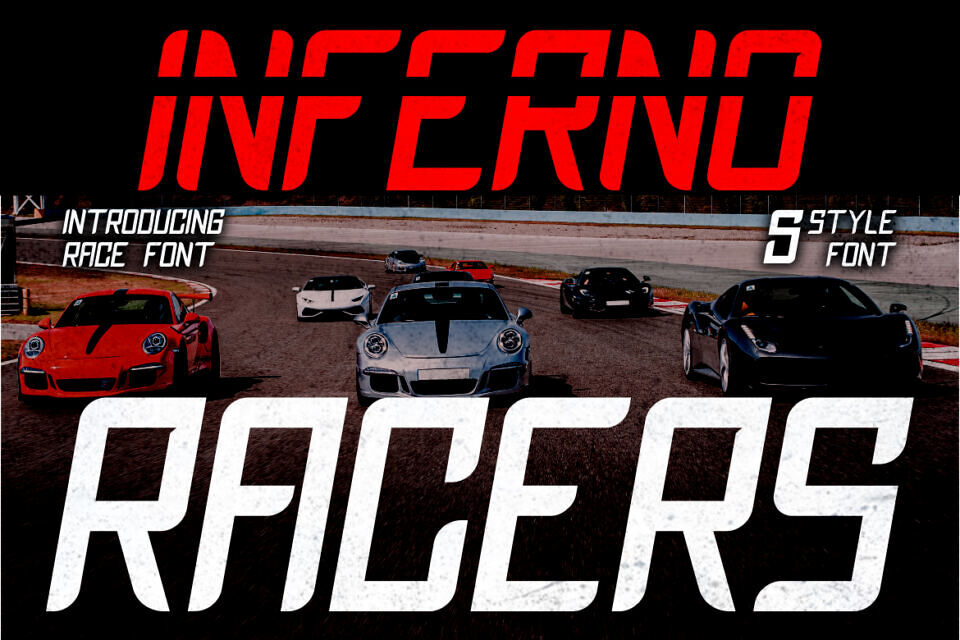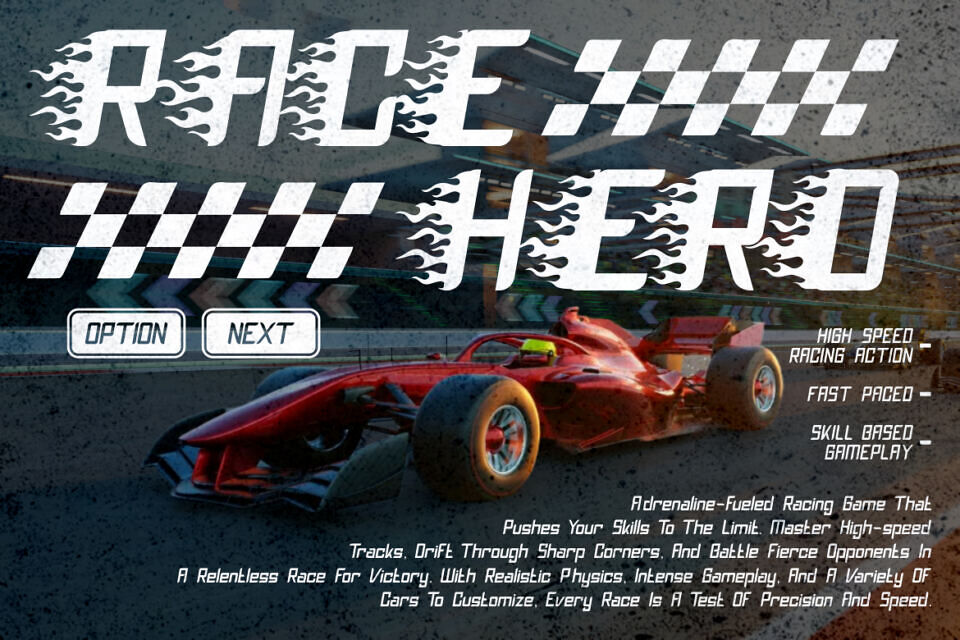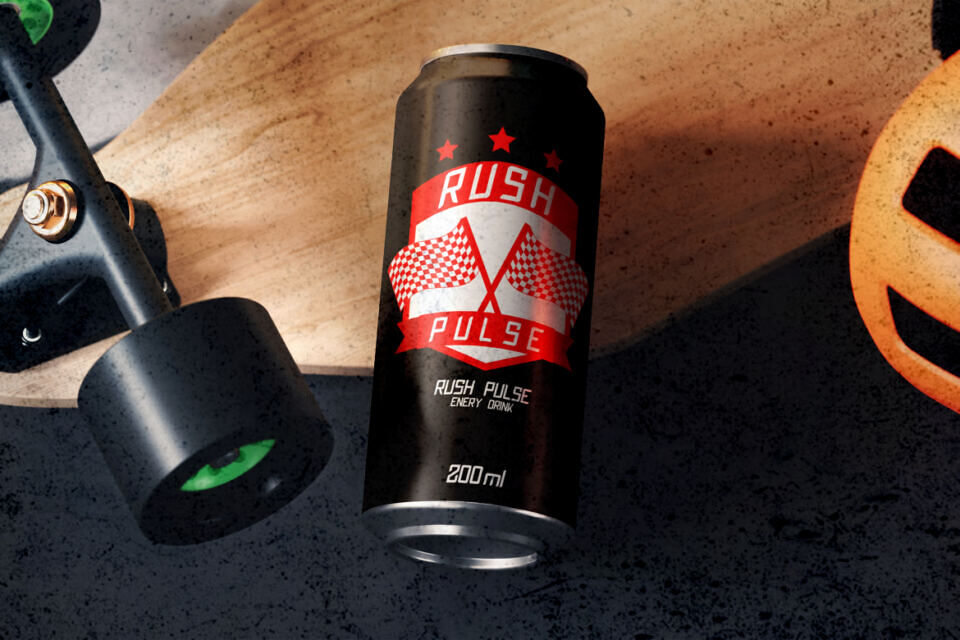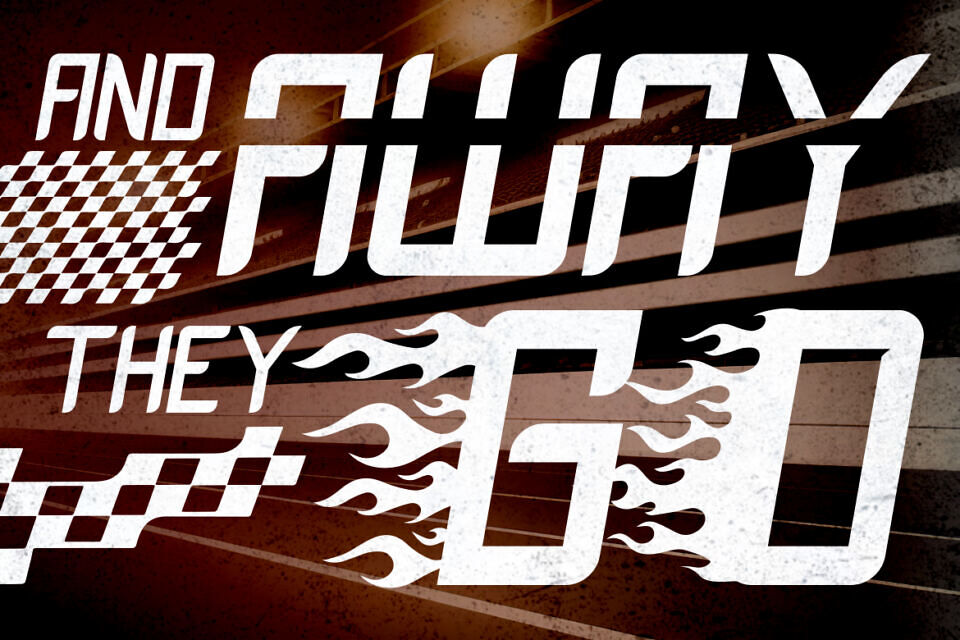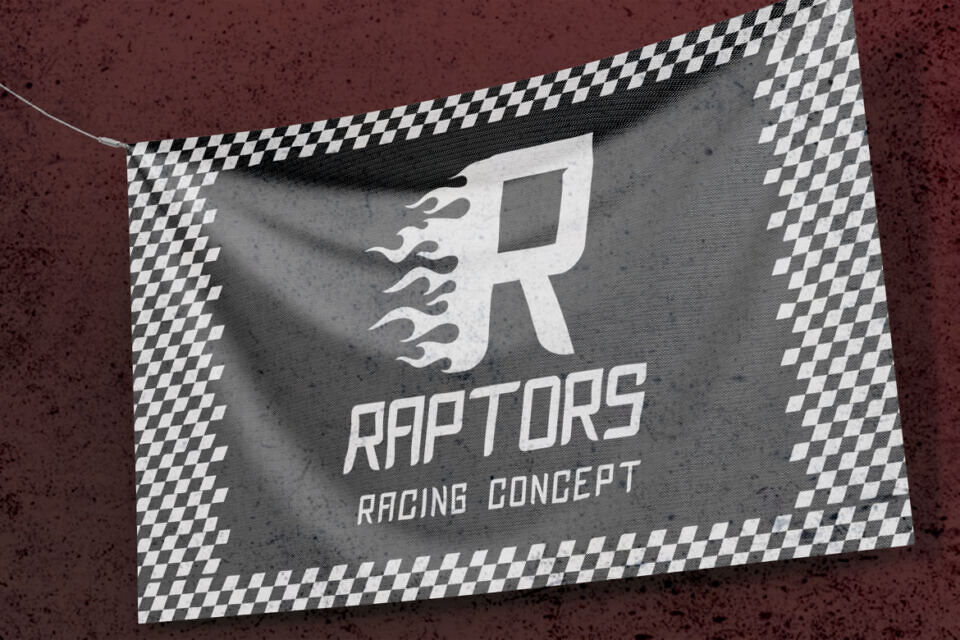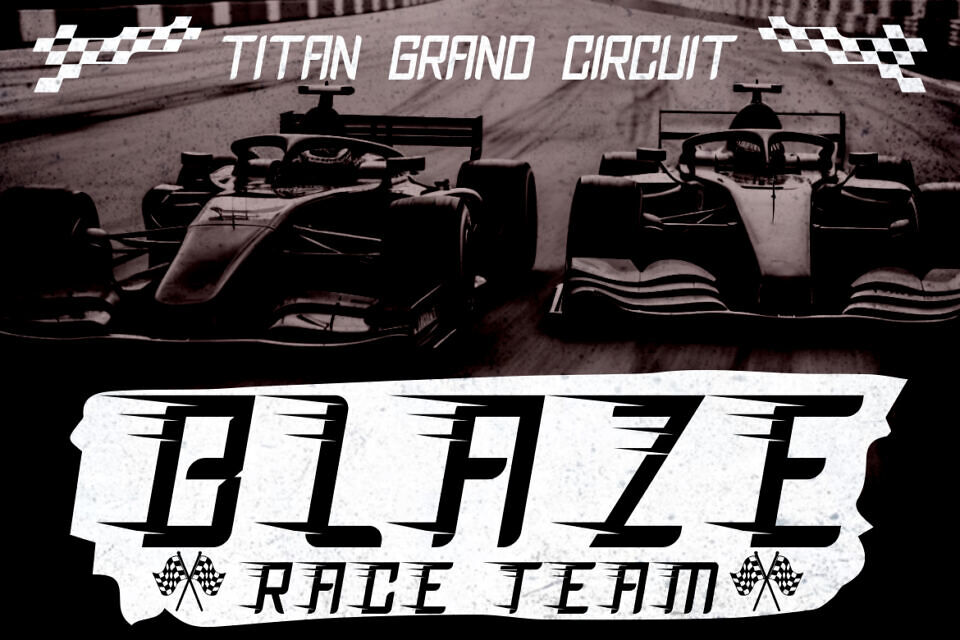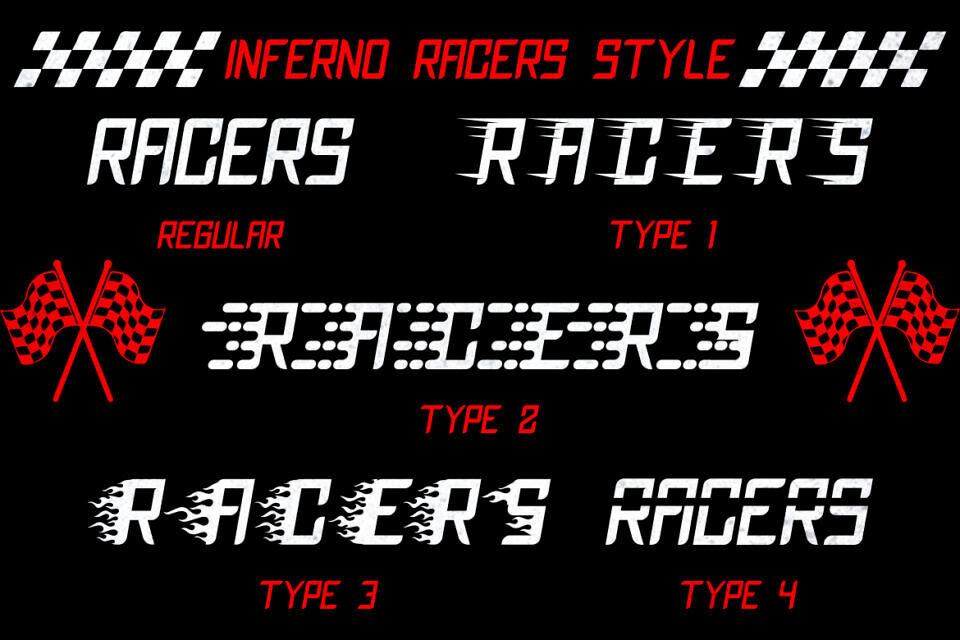
Inferno Racers Font
Inferno Racers is a high-octane race typeface engineered for speed, energy, and modern visual impact. Designed with angular geometry and bold curvature, each letterform echoes the velocity and thrill of motorsports.
This display font includes 5 versatile styles: Regular, Speedline (Type 1), Digital Dots (Type 2), Flame (Type 3), and Slant Extended (Type 4), allowing creative flexibility for various race-themed and high-impact projects.
From flaming glyphs to digital scoreboard aesthetics, Inferno Racers embodies the language of power, precision, and high-speed motion. It works seamlessly on both dark and light backgrounds, making it perfect for esports branding, dynamic logos, movie titles, or futuristic racing banners.